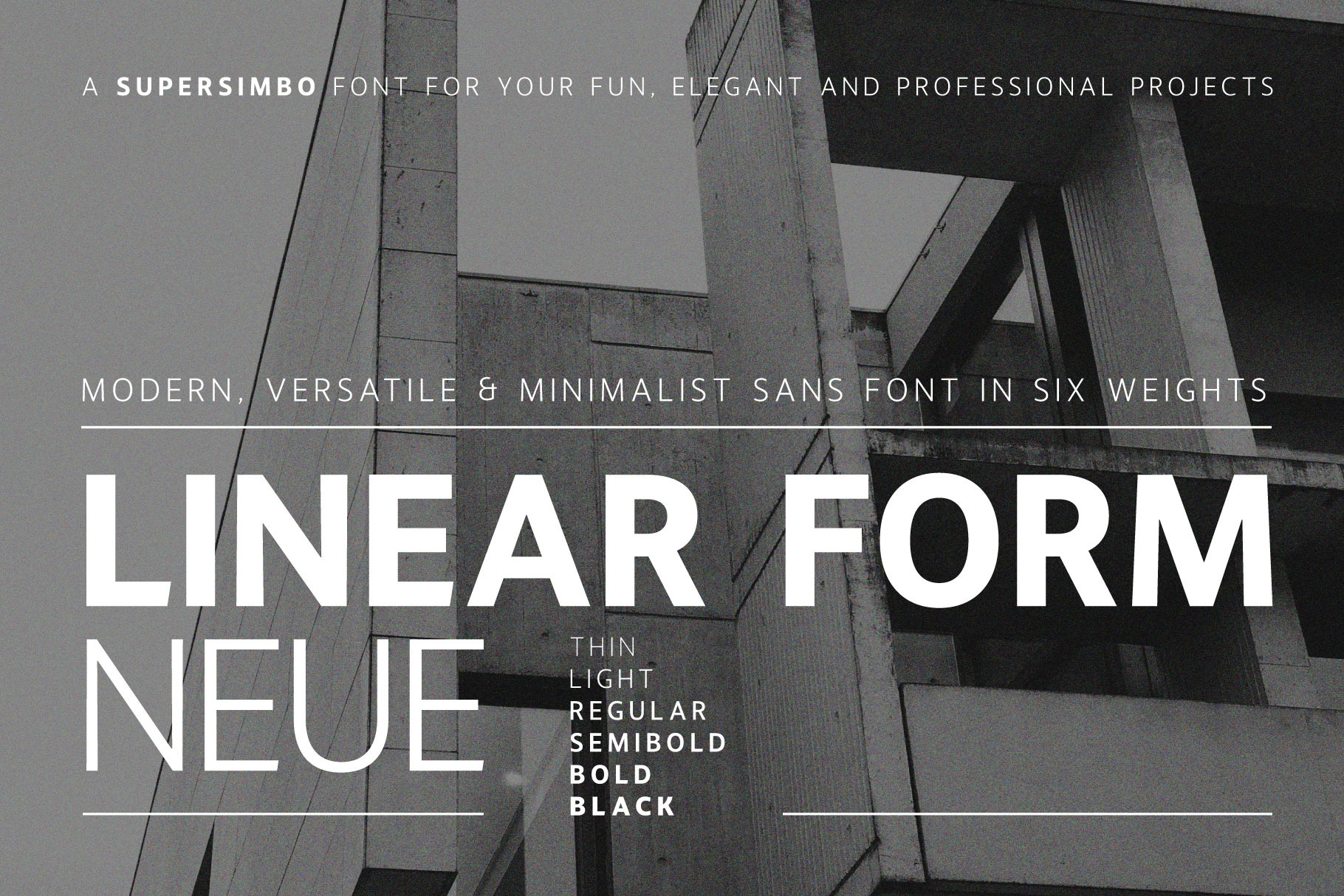
Linear Form Neue | A Sans Serif Font
Introducing Linear Form Neue, a versatile font family that seamlessly blends modern minimalism with timeless readability. Its clean, straightforward lines make it ideal for both display and body text, offering crisp clarity in every size. Designed for simplicity and elegance, Linear Form Neue is perfect for everything from corporate branding to web content, ensuring a balanced and contemporary aesthetic.